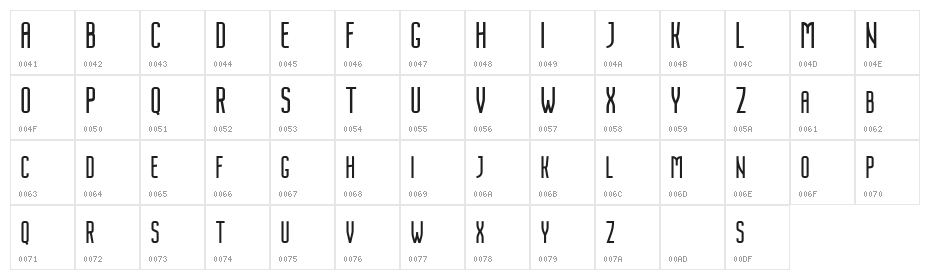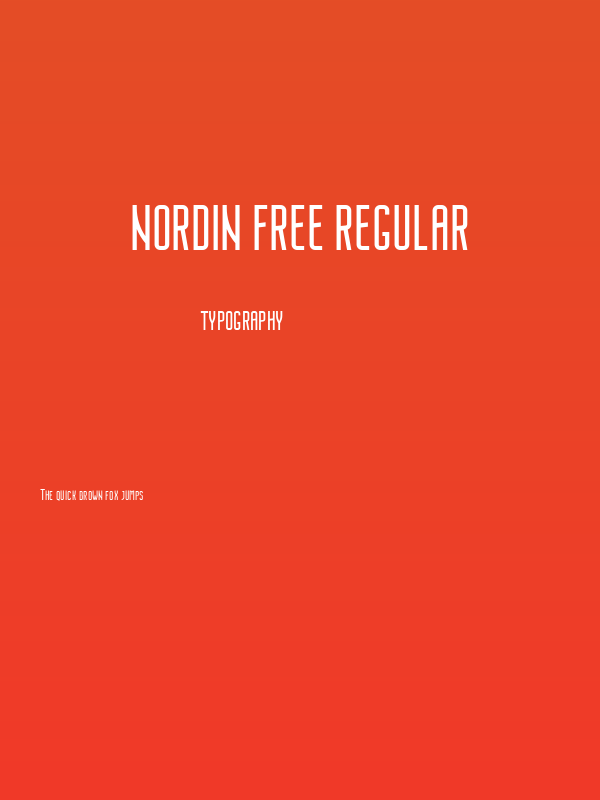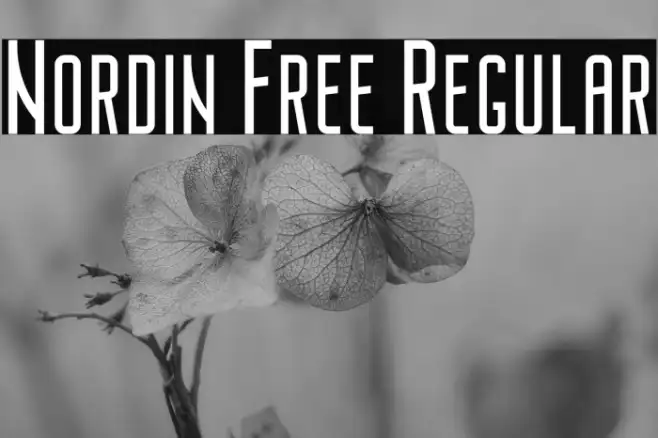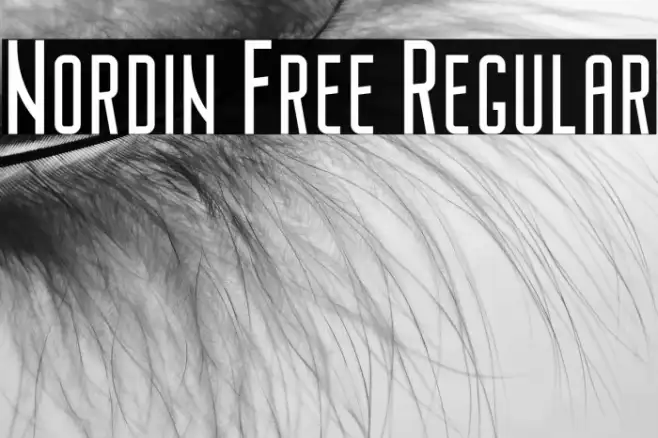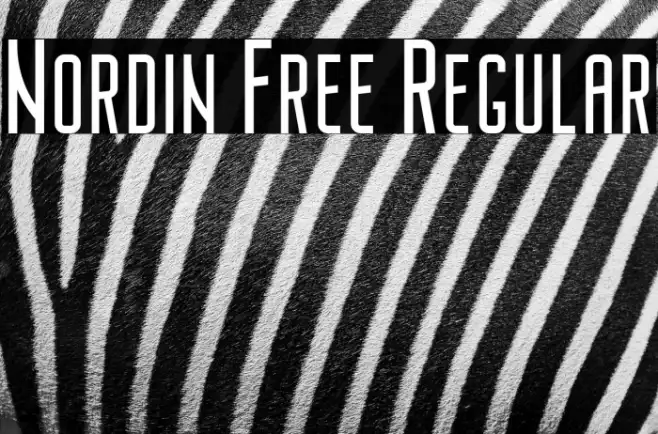
Nordin Free Regular Font
Nordin Free Regular Description
This font features a modern, geometric style with clean, straight lines and a slightly condensed form. The uppercase letters are tall and narrow, giving a sleek and sophisticated appearance. The lowercase letters maintain a consistent height and width, creating a harmonious balance between the two cases. The font's design is minimalistic yet impactful, making it suitable for a variety of design applications. The numerals and special characters are crafted with the same attention to detail, ensuring uniformity across all glyphs. This font is ideal for projects that require a contemporary and professional look.
| Proposed Projects | Ideal for branding, editorial design, posters, and digital media projects. |